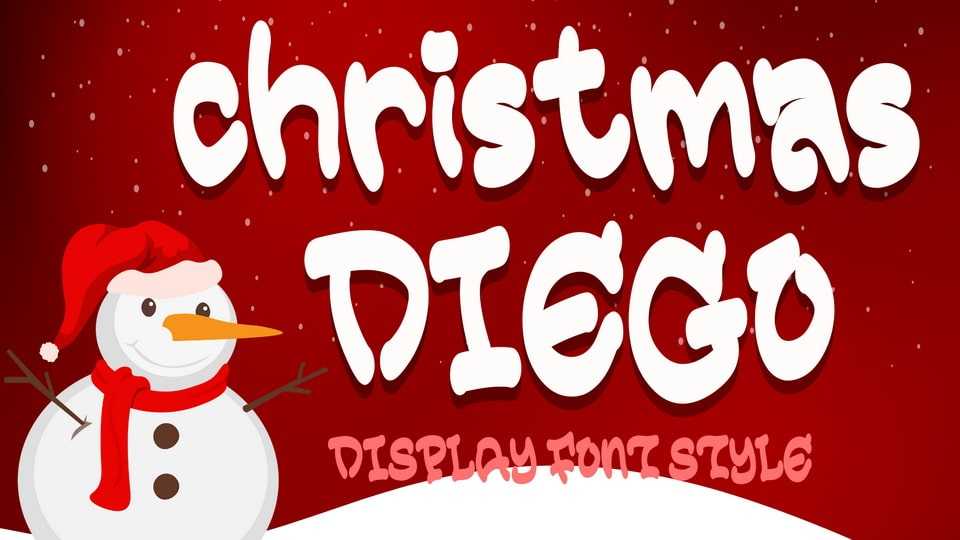
Download Christmas Diego font, a cheerful and bold display typeface bursting with holiday spirit! With its playful, rounded letters and snow-like charm, it’s the perfect typeface for Christmas cards, festive banners, winter crafts.